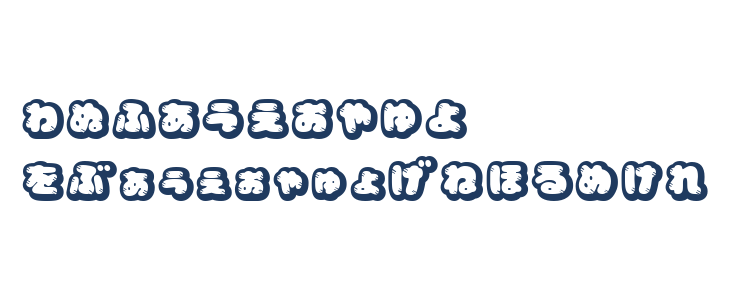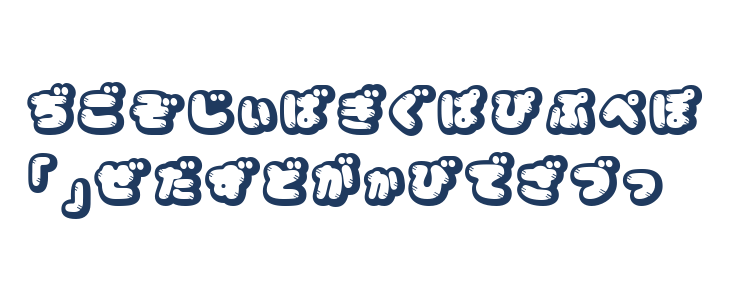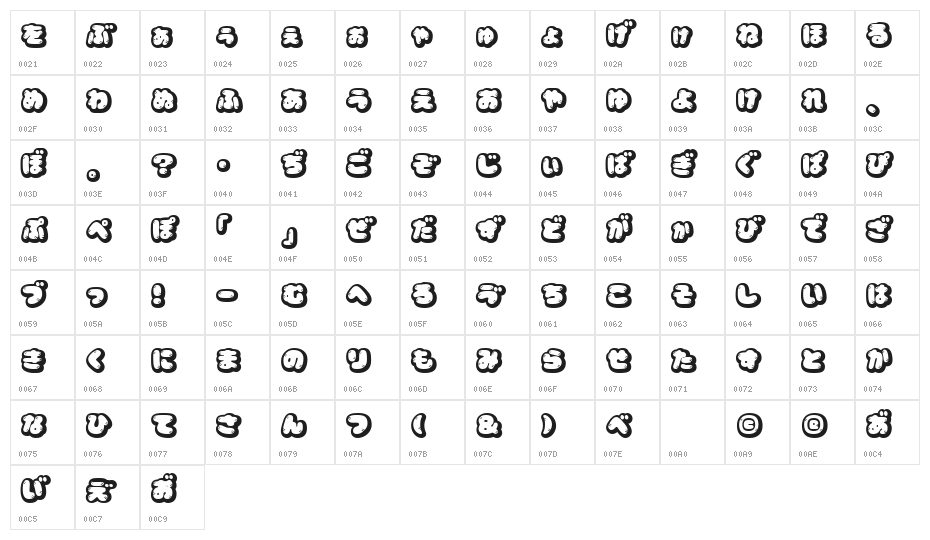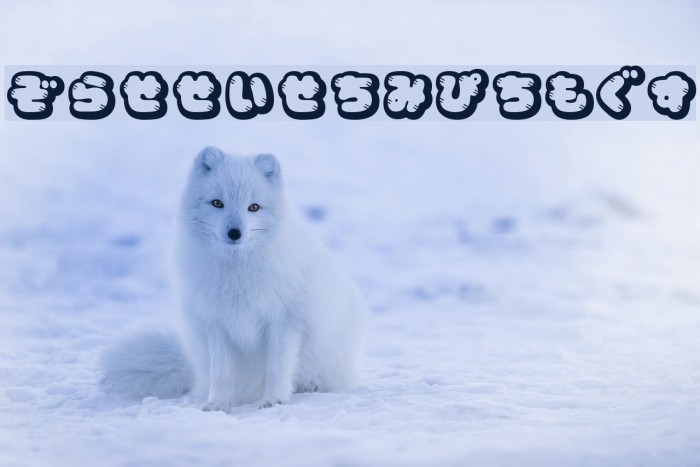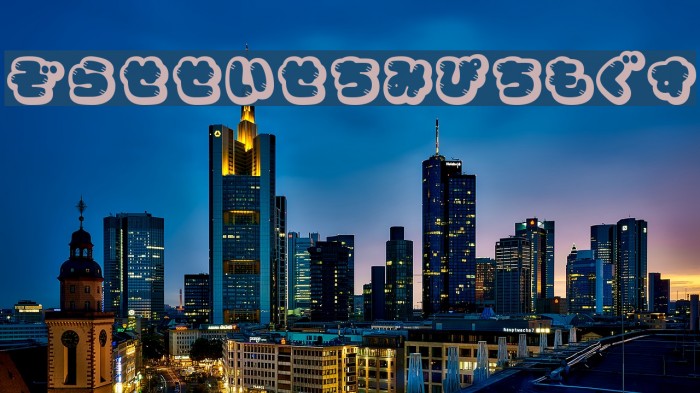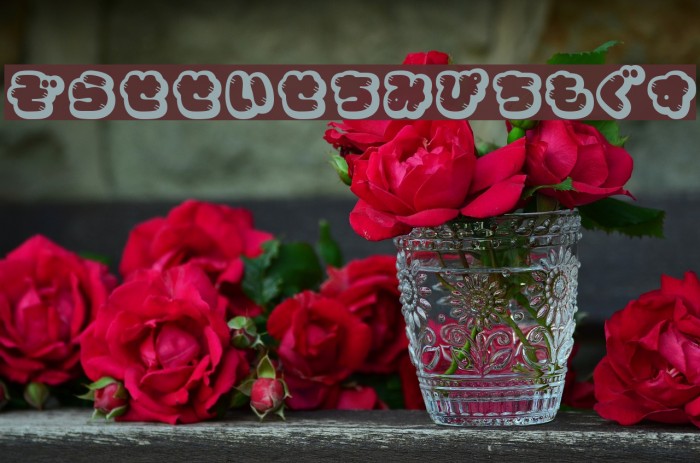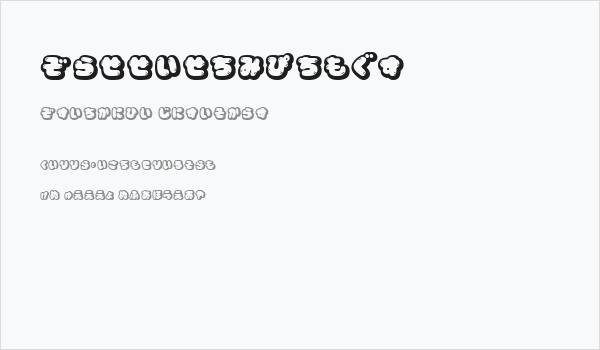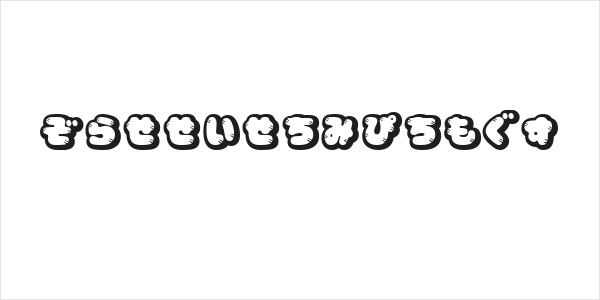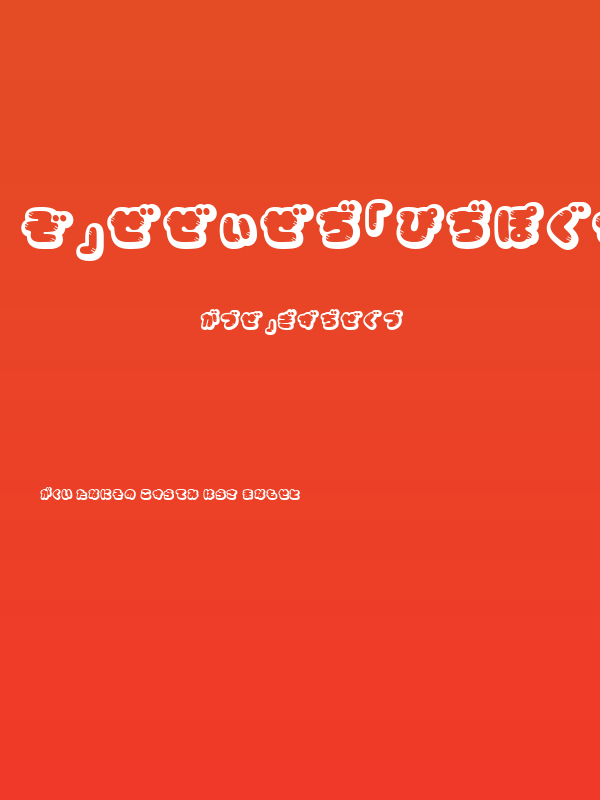
CoppepanJamHr Font
CoppepanJamHr Description
This playful and bold font features a bubbly, cartoonish style with thick outlines and rounded edges. The characters are highly stylized, giving off a whimsical and fun vibe. The font is designed to capture attention with its exaggerated forms and lively appearance, making it ideal for creative and informal contexts. The strokes are consistent in thickness, contributing to a uniform look across all characters. The font's design is reminiscent of comic book lettering, with a touch of retro charm. Its unique style makes it stand out, perfect for projects that require a touch of humor and creativity.
| Overall Style | Playful, Cartoonish, Retro |
| Proposed Projects | Ideal for children's books, comic strips, playful branding, and party invitations. |